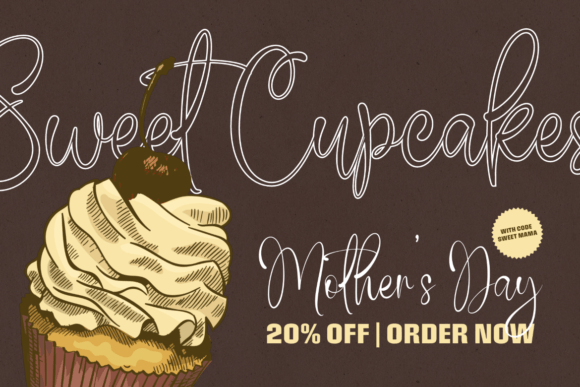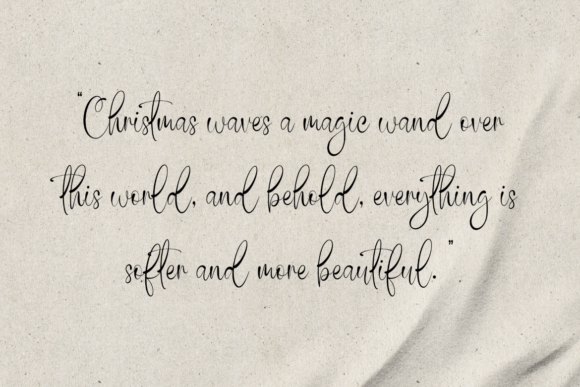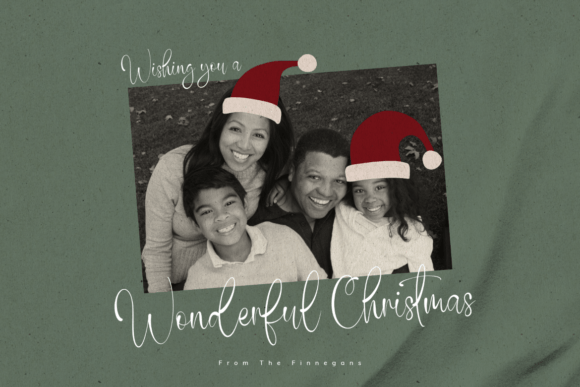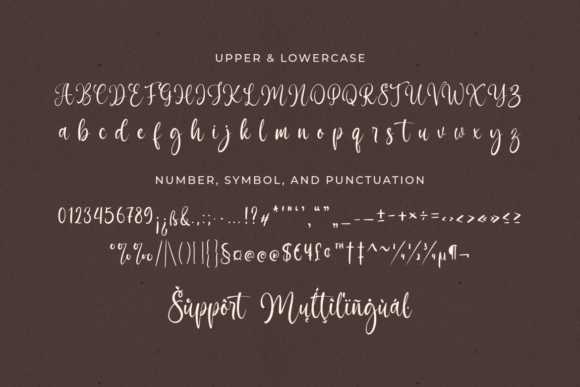
Extra Cupcake Font
Meet Extra Cupcake Font, the perfect blend of cute and stylish! This charming script font is ideal for all things lovely: think of Valentine’s designs, wedding invites, birthday cards, branding, quotes, and any project that needs a sweet touch.